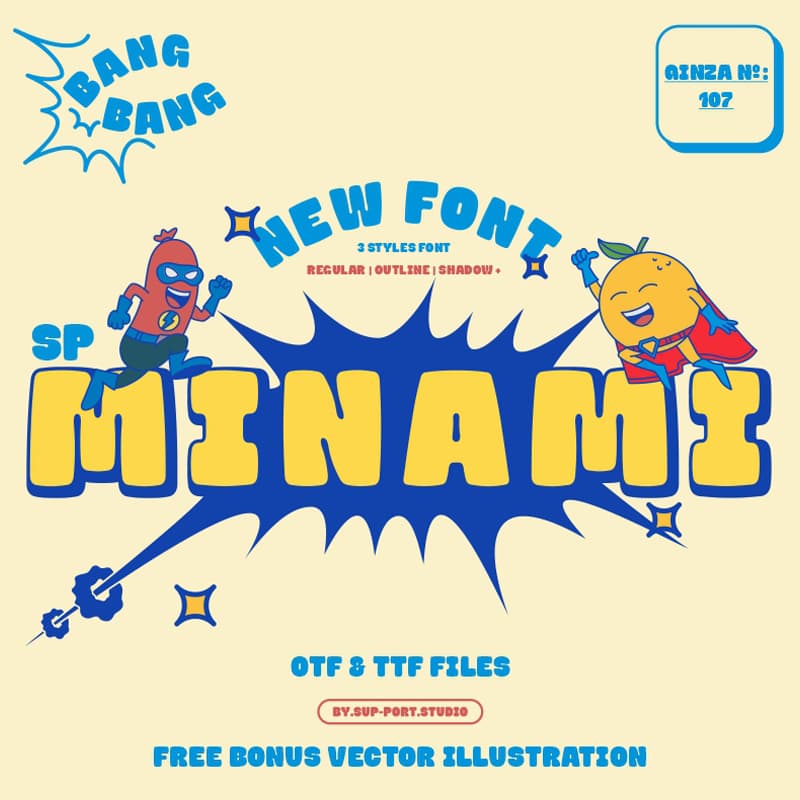
<h3>SP MINAMI: Dynamic Font Trio with Illustrations</h3><p>SP MINAMI, presented by Sup-Port Studio, is a versatile collection of three dynamic fonts—Regular, Outline, and Shadow—accompanied by free playful illustrations. Echoing contemporary trends, this bundle is characterized by its comic style, a sense of happiness, and an overall playful vibe. Perfect for incorporating into a variety of design projects, this typeface adds a vibrant touch to any visual narrative.</p><p><br></p><p>Features:</p><ul><li><p><strong>OpenType Features</strong> – Includes ligatures and ordinals.</p></li><li><p><strong>Multi-lingual Support</strong> – Ensures comprehensive language compatibility.</p></li><li><p><strong>Comprehensive Symbol Set</strong> – Offers currency figures, numerals, punctuation, and arrows.</p></li></ul><p><br></p><p>Whether you're working on graphic designs, logos, t-shirts, print materials, business cards, or branding projects, SP MINAMI offers a meticulously crafted choice that enriches any creative endeavor.</p>